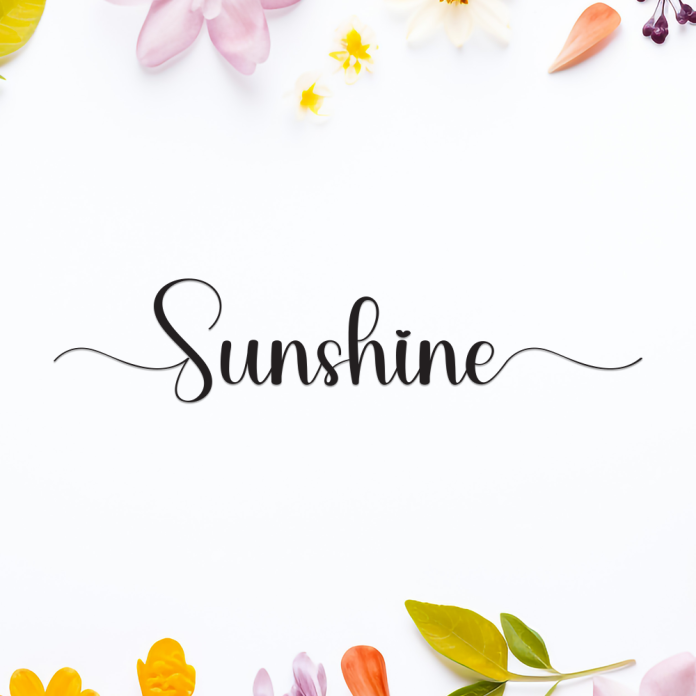
Sunshine is a smooth and radiant handwriting font that glows with charm and natural beauty. Its flowing strokes and graceful curves make it ideal for heartfelt designs, personal notes, and creative branding.
Perfect for wedding invitations, inspirational quotes, product packaging, and logos, Sunshine brings a gentle touch of elegance and positivity to every word.
Elegant, handwritten style
Natural strokes with a personal touch
Great for romantic, joyful, and feminine designs
Let your words shine bright with Sunshine – the perfect font for designs that need a little extra warmth.